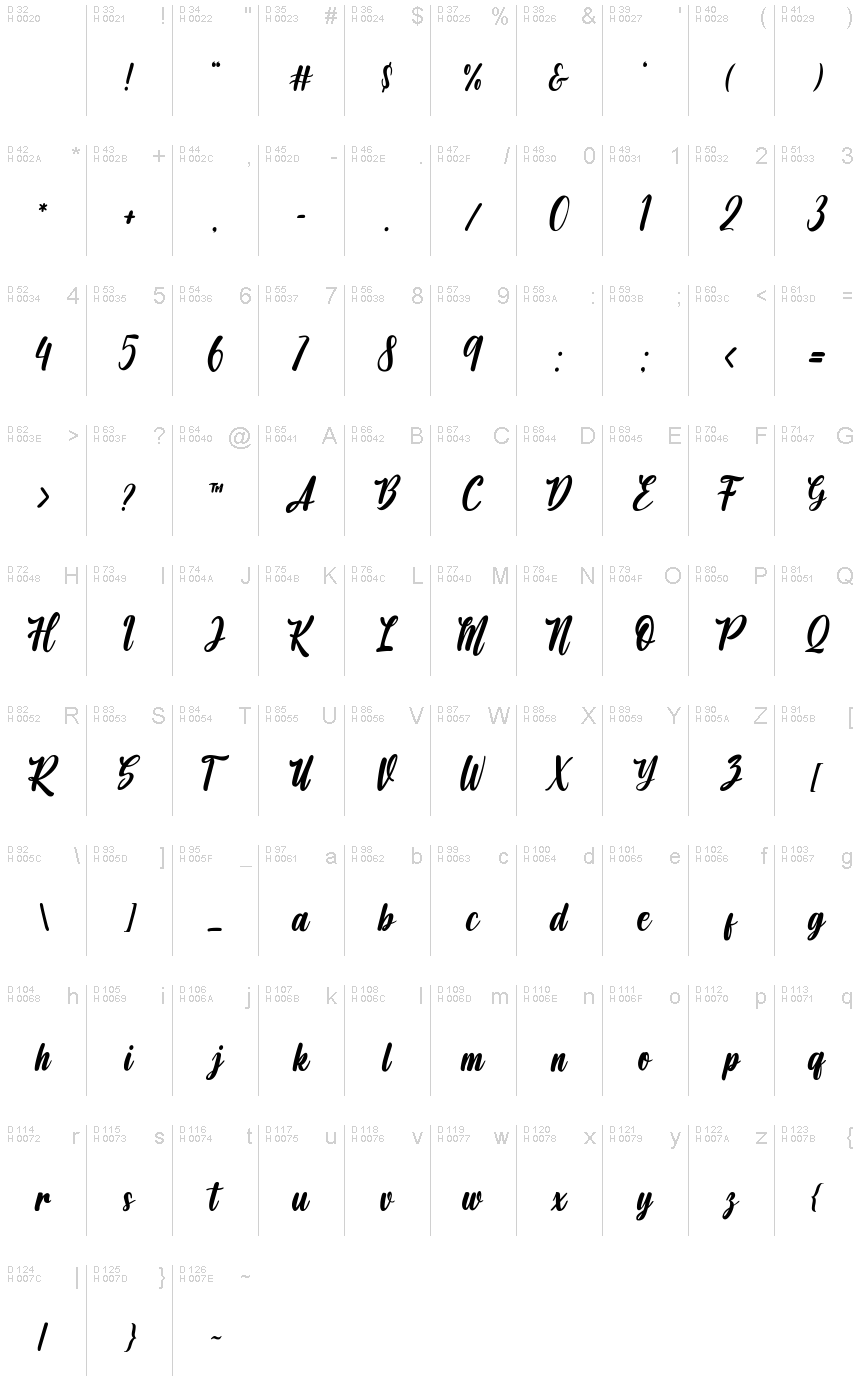
Angelist
Angelist by Ikrar Bey Khubaib is a captivating calligraphic font that exudes a refined and sophisticated aesthetic. With its fluid, cursive strokes and elegant condensed width, this font captivates the eye and evokes a sense of timeless artistry. The harmonious blend of sharp edges and smooth, flowing lines creates a visually striking balance, making Angelist a standout choice for projects seeking a touch of refined elegance.
The versatility of Angelist allows it to seamlessly integrate into a wide range of design applications, from high-end branding and editorial layouts to luxurious product packaging and invitations. Its calligraphic flair lends itself beautifully to projects that require a touch of sophistication and exclusivity, enabling designers to elevate their work with a font that commands attention and leaves a lasting impression.